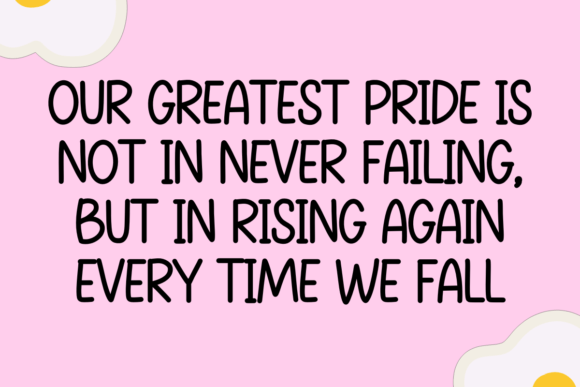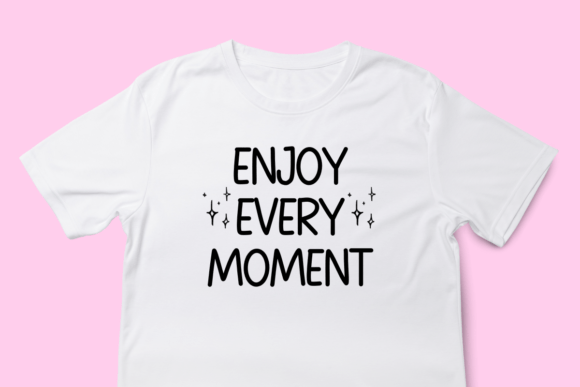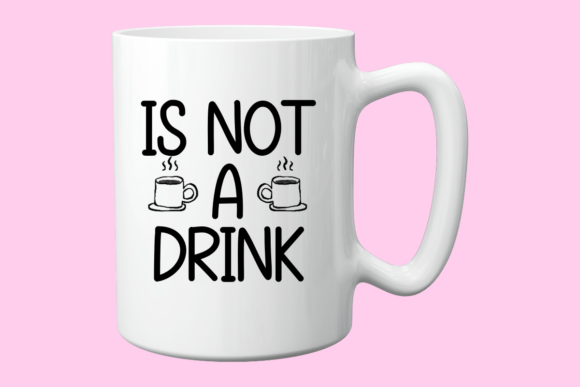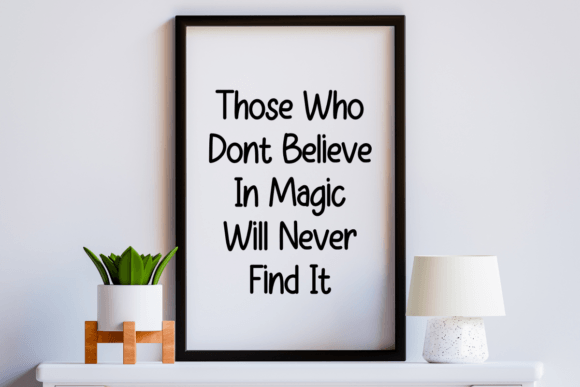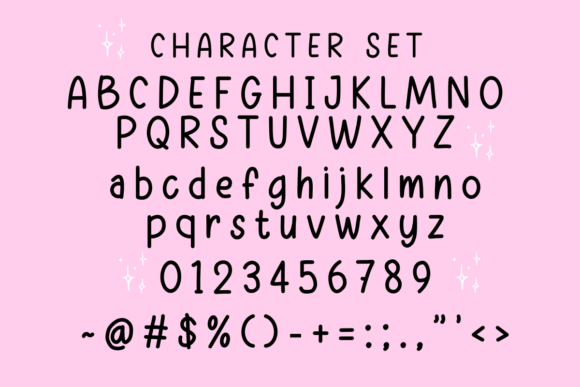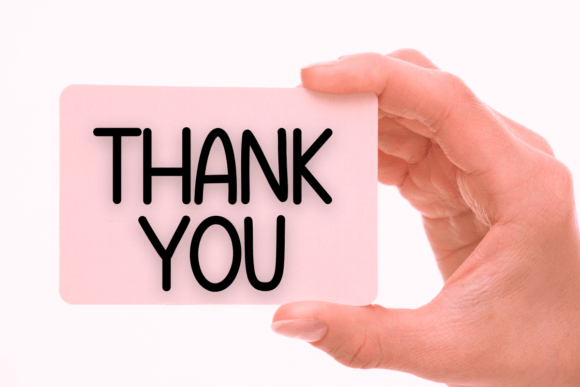
Introduction to Grinch Reborn Font
As a designer, there’s nothing quite like that moment when you stumble upon the perfect font to bring your creative project to life. For some, it’s a matter of finding the right script to convey a sense of elegance, while others crave a font that exudes playfulness and whimsy. For those in the latter camp, we’re excited to introduce the Grinch Reborn Font, a delightful addition to any design resource library.
With its cute and friendly handwritten style, Grinch Reborn Font is perfect for adding a touch of warmth to your next creative project. Whether you’re working on a fun Easter promotion, a back-to-school campaign, or a wedding invitation, this font is sure to bring a smile to your audience’s faces. Its high-quality design and transparent background make it a valuable asset for any designer looking to elevate their work.
Key Features of Grinch Reborn Font
- Unique Grinch-inspired design perfect for creative projects and Halloween-themed designs.
- High-quality font with transparent background, ideal for designers seeking a clean and versatile design resource.
- Unique characteristics include bold, playful lines and a modern twist on the classic Grinch character.
- Perfect for designers looking to add a touch of whimsy and personality to their creative projects.
Honest Review: Grinch Reborn Font
As a designer, I’m always on the lookout for unique and high-quality design resources to elevate my creative projects. The Grinch Reborn Font caught my attention with its quirky, playful vibe. I decided to give it a try and see how it stacks up.
- ✨ The font’s irregular shapes and textures add a fun, hand-drawn feel to any design project.
- ✨ The font includes a transparent background, which is perfect for creating bold, eye-catching graphics and designs.
- ⚠️ The font’s irregular shapes can make it difficult to read in certain situations, particularly at smaller font sizes.
- ⚠️ The font is not as versatile as some other fonts on the market, so it may not be the best choice for projects that require a lot of flexibility.
Overall, I think the Grinch Reborn Font is a great addition to any designer’s toolkit, especially for creative projects that require a unique, playful vibe. With a little experimentation, I think it can be a real game-changer for designers who want to stand out from the crowd.
The Grinch Reborn Font is a unique and eye-catching design resource that can elevate any creative project. With its high quality and transparent background, this font is perfect for designers looking to add a touch of whimsy to their work.
To get the most out of the Grinch Reborn Font, try combining it with other design elements, such as bold lines or bright colors, to create a unique and eye-catching visual effect.
The Grinch Reborn Font is perfect for designers working on creative projects, such as:
- Children’s book illustrations
- Party invitations